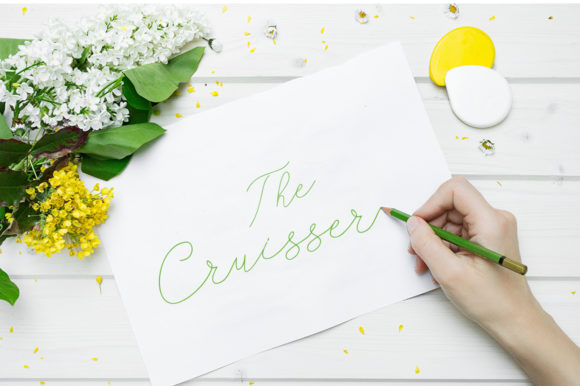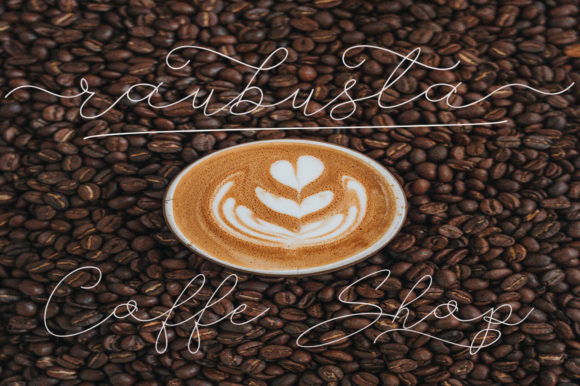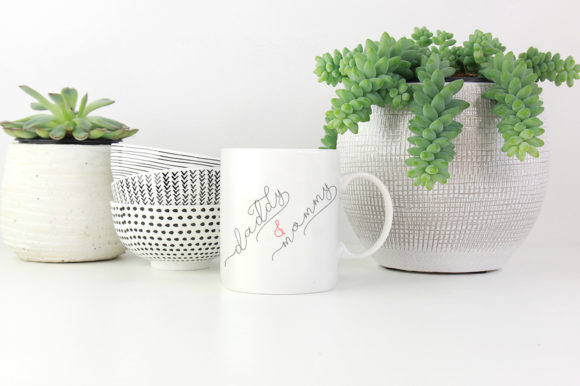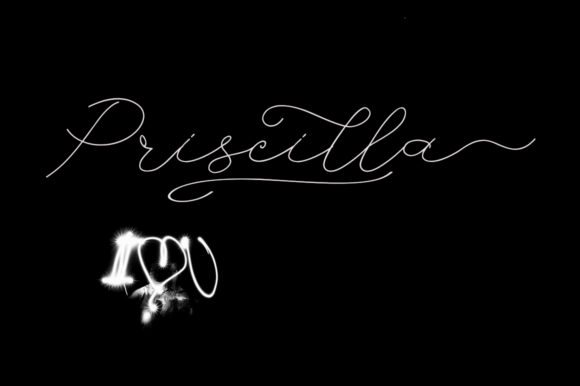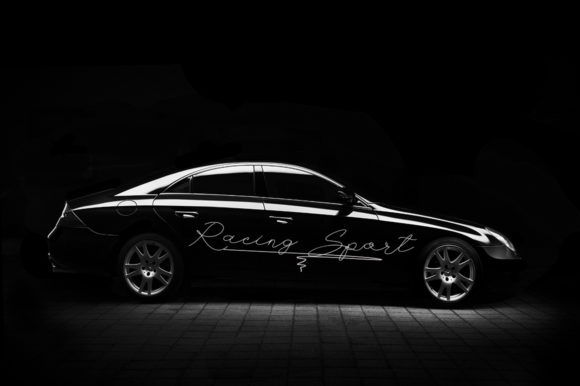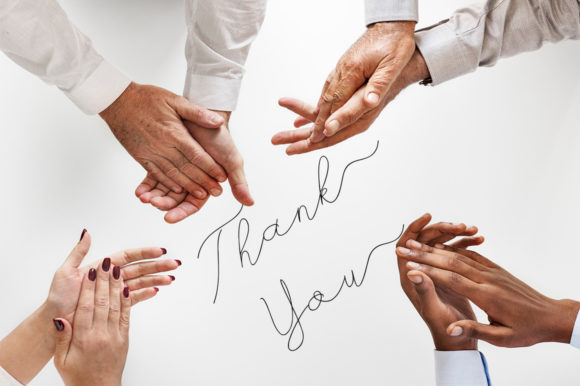
HomeScript FontsRossalle Font Script Fonts Rossalle Font FacebookXPinterestWhatsApp Rossalle Font Poster 2 Rossalle Font Poster 3 Rossalle Font Poster 4 Rossalle Font Poster 5 Rossalle Font Poster 6 Rossalle Font Poster 7 About Rossalle Font Rossalle is a stylish and unique font with a bold feel. Fall in love with its modern elegance. DOWNLOAD ON CREATIVE FABRICAThis font is sold and delivered by Creative Fabrica. Font Canyon may earn a commission if you buy through this link. People also explored Inkston Steg Pro Simple Thinks Font Thransty Font Wicked Graveyard Font Kalia Monogram Font Christmas Wish Font Happy Rainbow Family Font Blank Note Font 381 0 TagsRossalle Font Previous articleLucky Walter FontNext articleSaharia Font LEAVE A REPLY Cancel reply Comment: Please enter your comment! Name:* Please enter your name here Email:* You have entered an incorrect email address! Please enter your email address here Website: Save my name, email, and website in this browser for the next time I comment. Personal Use Free Nuku Nuku Personal Use Free Read more about this font Cataclysmo Personal Use Free Read more about this font Panaroe Personal Use Free Read more about this font Valentines Day Personal Use Free Read more about this font BLOG Best Fonts for YouTube Videos: Make Your Thumbnails Stand Out Best Fonts for YouTube Videos: Make Your Thumbnails Stand Out Choosing the right font can make a massive difference in how your YouTube videos perform.... Where to Buy American Fonts Online in 2024 How to Cut Any Font on Cricut: Convert a Font to SVG (Free) Free Fonts Risk: Why Free Fonts Can Be Dangerous for Designers